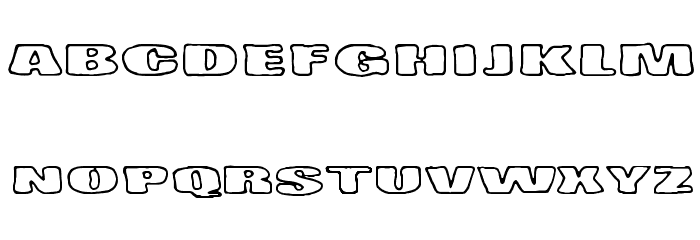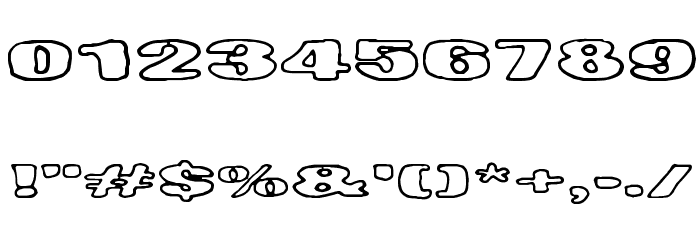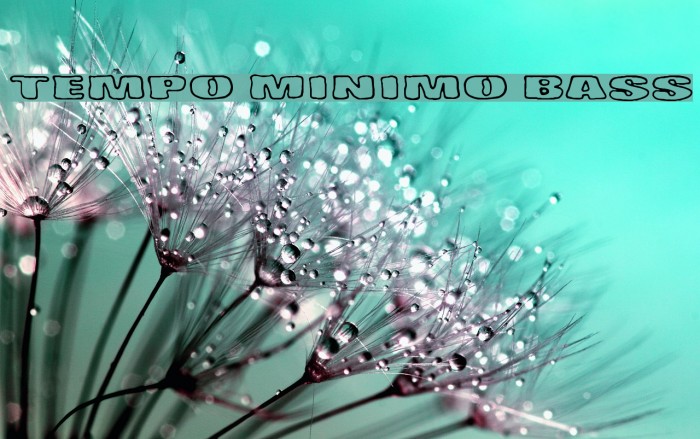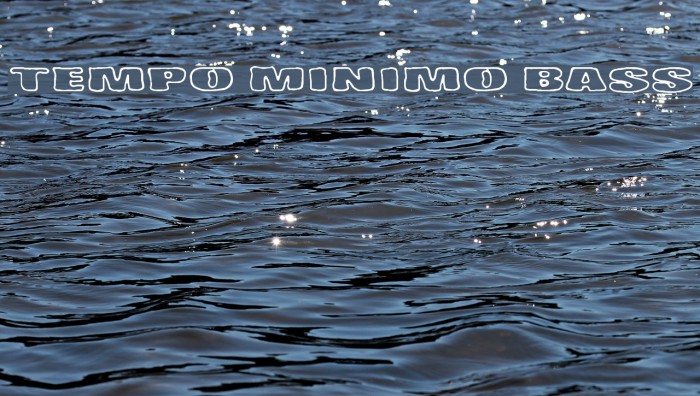
Tempo Minimo Bass Font
This font features a bold, outlined style with a playful and dynamic appearance. The characters are uppercase and lowercase letters, along with numbers and a variety of special symbols. The outline design gives it a unique, eye-catching look, making it suitable for creative and informal projects. The letters have a consistent thickness in their outlines, providing a uniform and cohesive appearance across all characters. The font's style is reminiscent of comic or cartoon aesthetics, adding a fun and lively touch to any design.
A bold, outlined font with a playful and dynamic style.
- Proposed Projects: Ideal for comic books, children's posters, playful branding, and creative headlines.
- Overall Style: Playful, Comic
- Use Case: Headlines, Posters, Branding